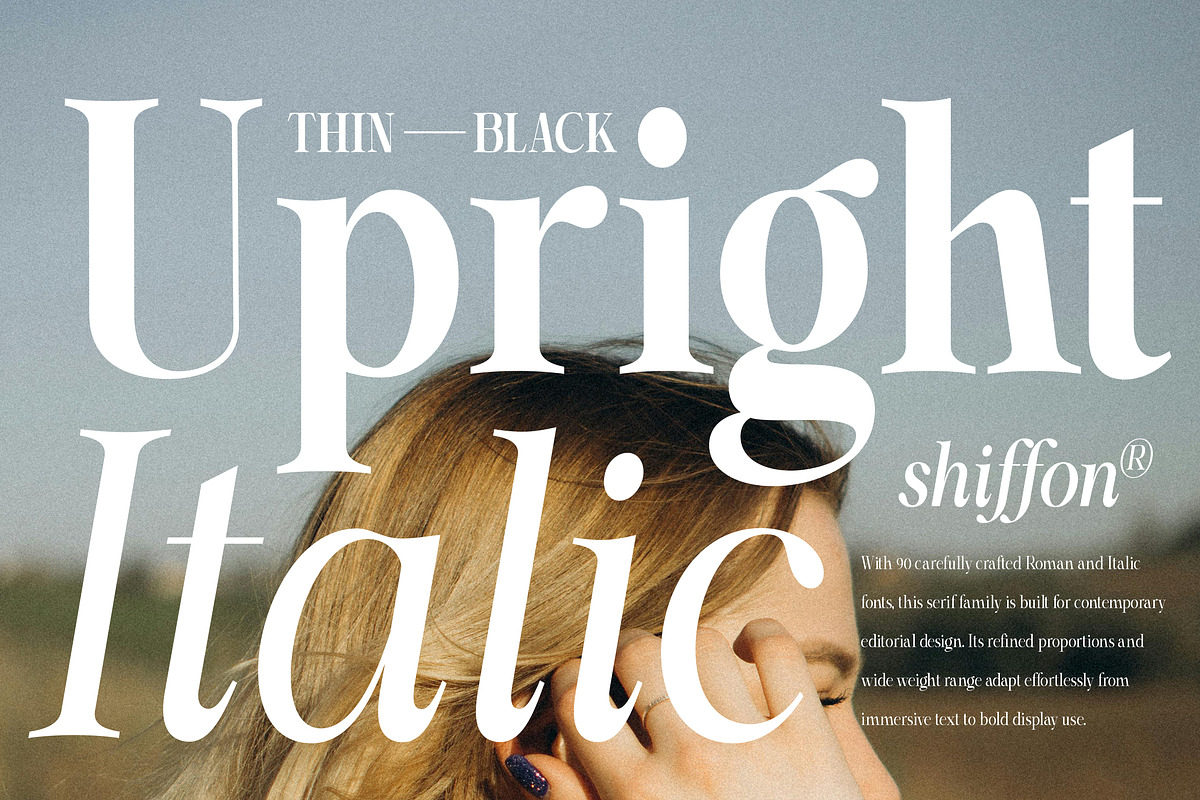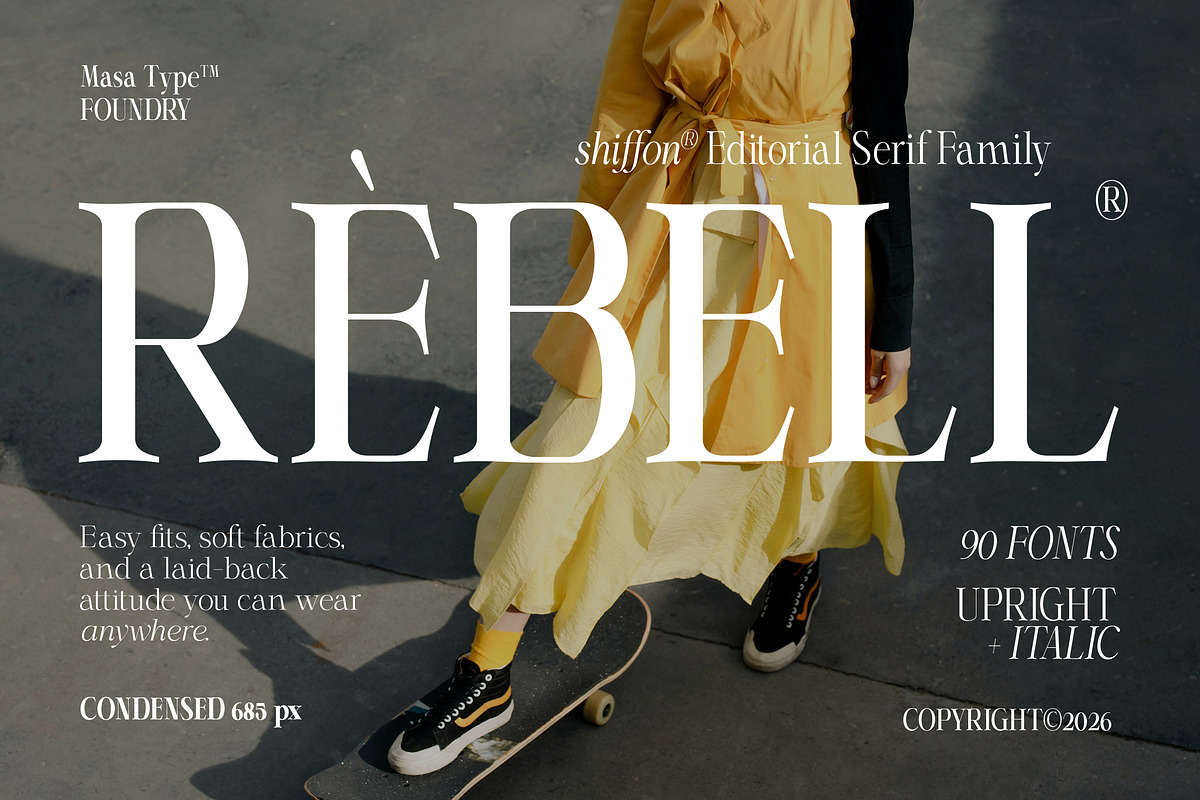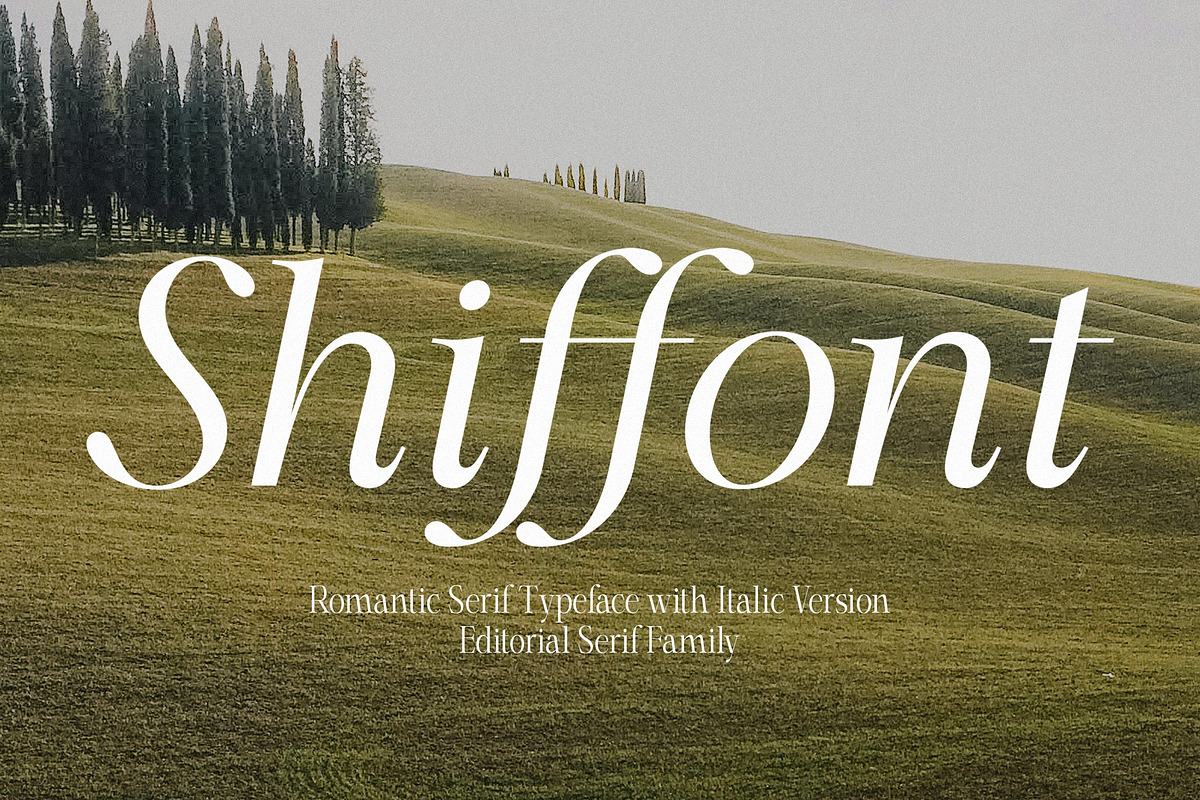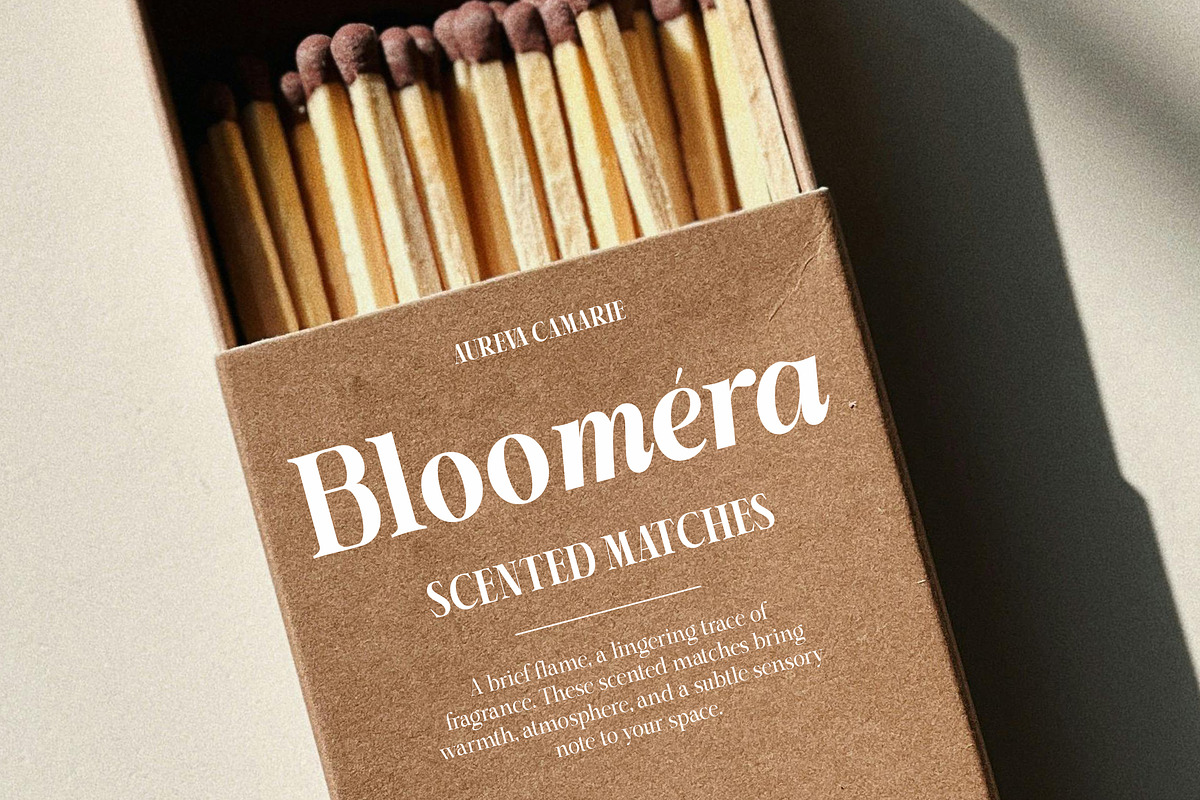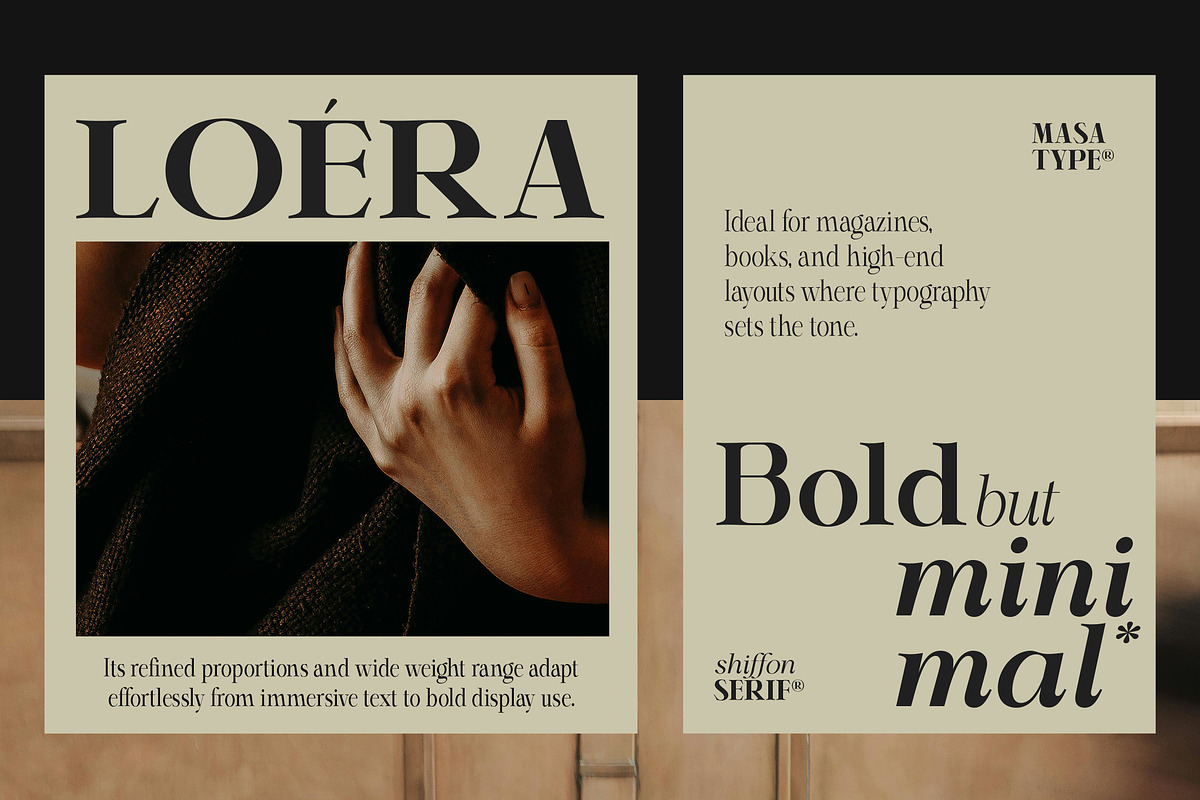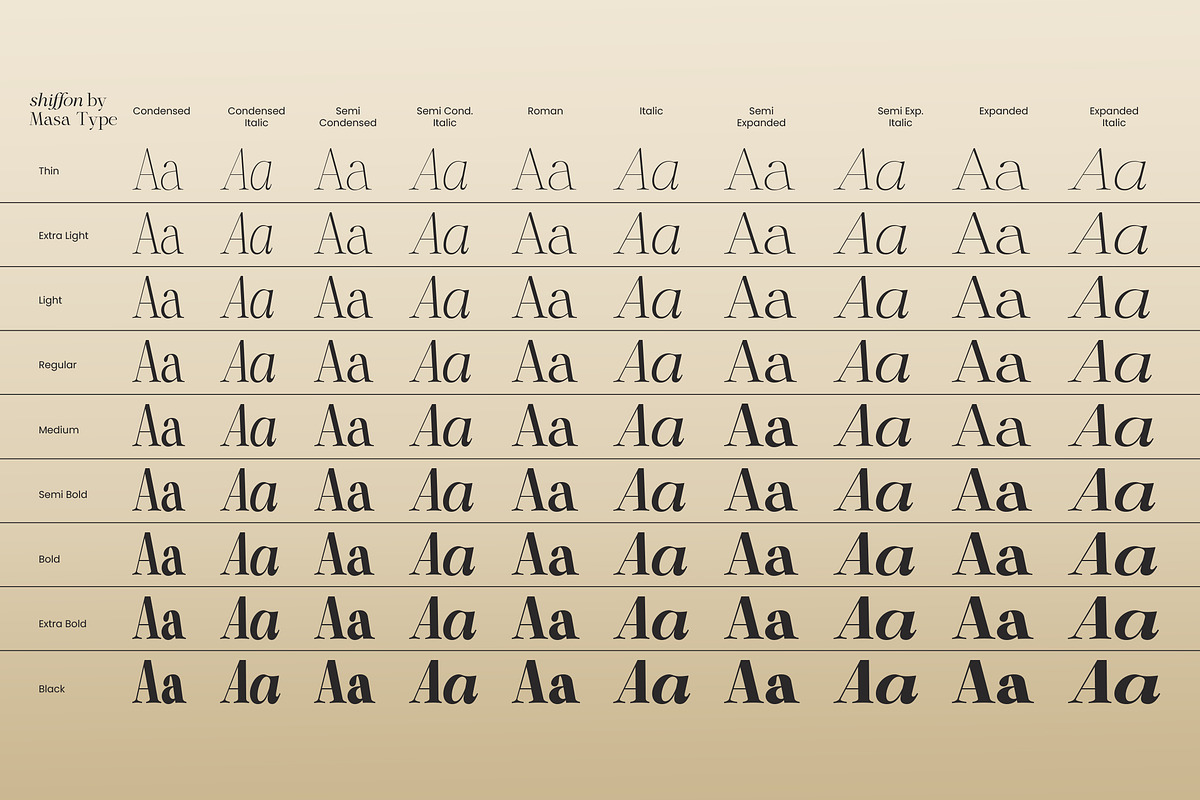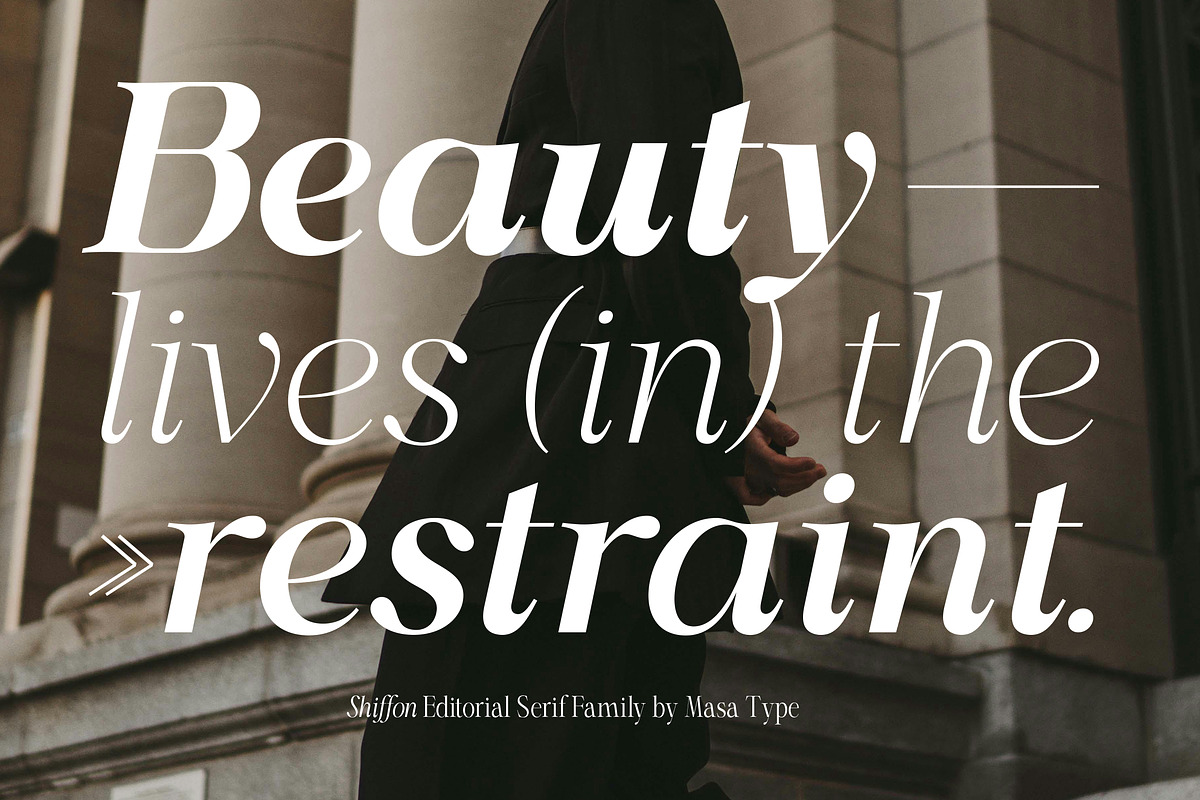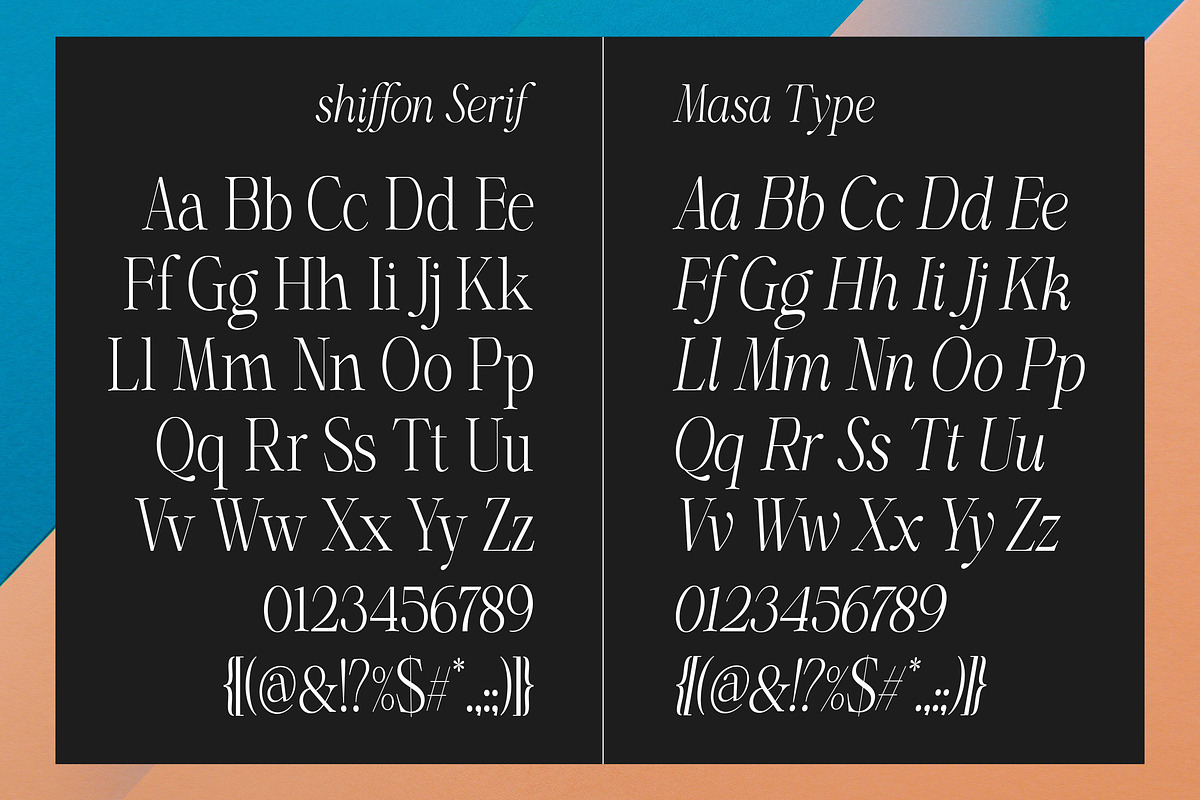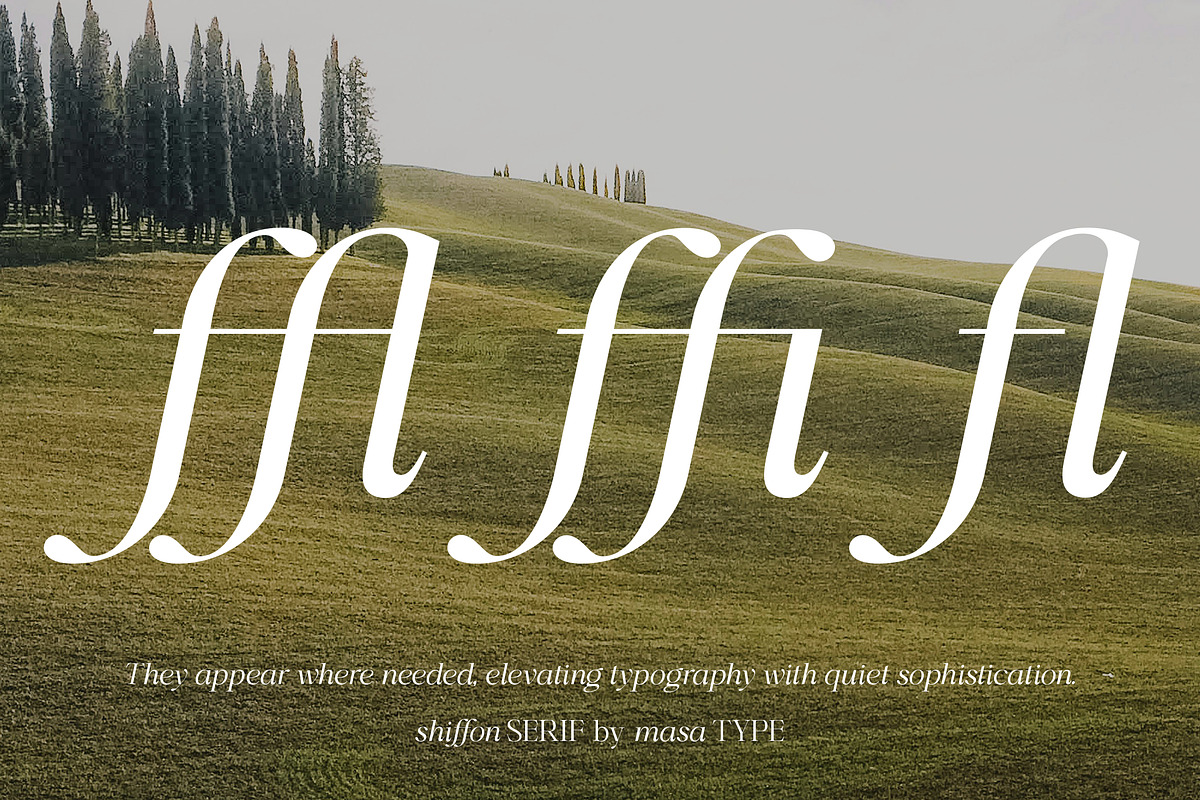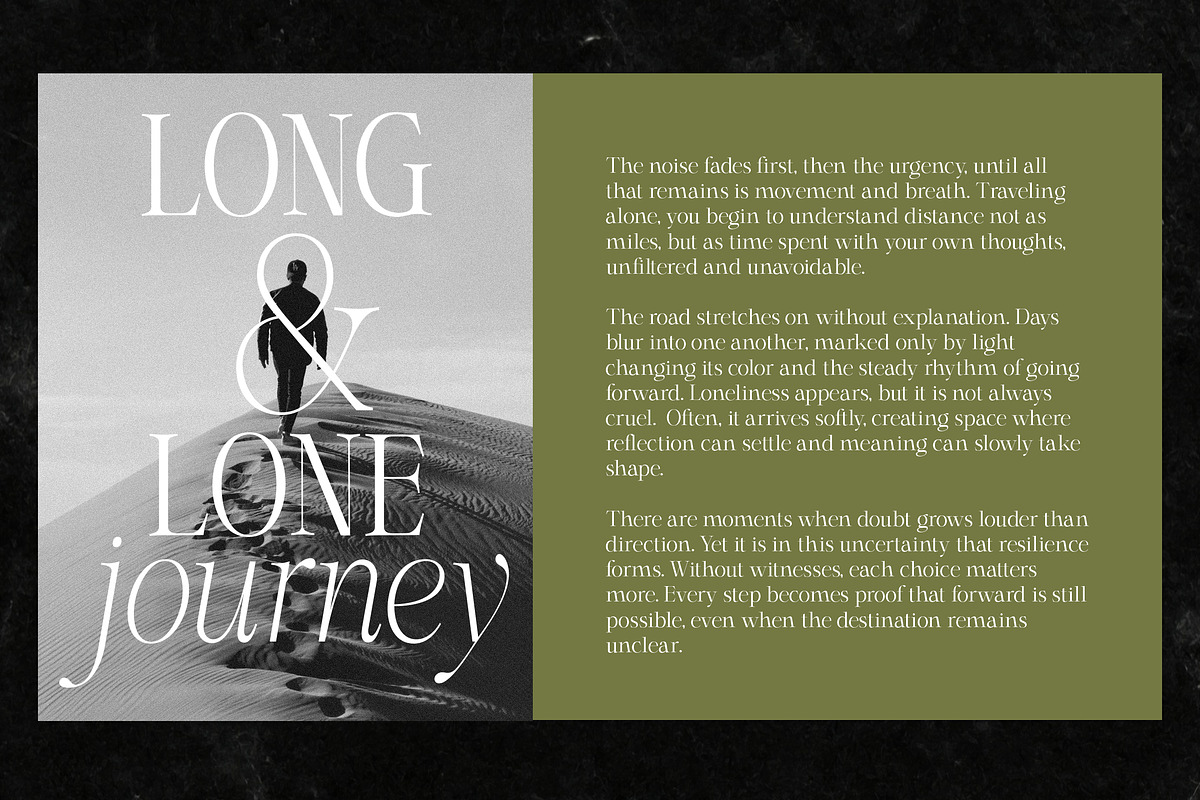
Shiffont Serif
Shiffont is a modern variable serif typeface that blends luxury, clarity, and contemporary elegance into one highly versatile font family. Designed with a delicate balance of sharp details and soft curves, Shiffont delivers a confident yet graceful character, making it ideal for premium and modern design applications. Featuring 9 weights and 5 widths with a smooth variable axis, Shiffont offers up to 90 styles, including upright forms. This extensive flexibility allows designers to refine typography with precision—from clean, minimalist layouts to bold, expressive statements. Balanced proportions, high legibility, and consistent rhythm work beautifully across a variety of large display sizes and smaller text settings. Perfect for: branding and logos, editorial design, UI/UX, web and app interfaces, advertising, packaging, and high-end display typography. Key features: Fully variable font for maximum flexibility Luxurious modern sans-serif characters Balanced sharp and soft shapes for a premium feel A comprehensive font family suitable for both display and text use Calgine empowers designers with creative freedom and typographic consistency—one sophisticated font family for modern visual communication.